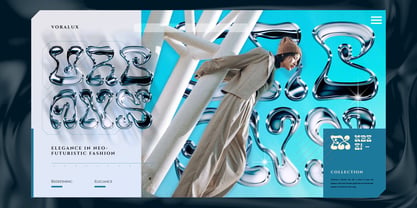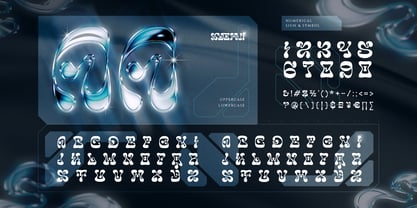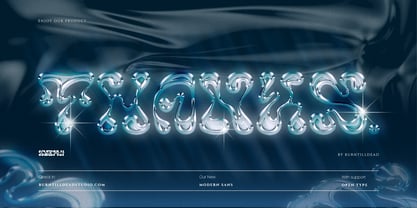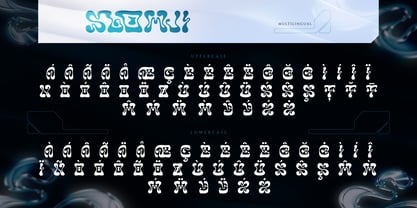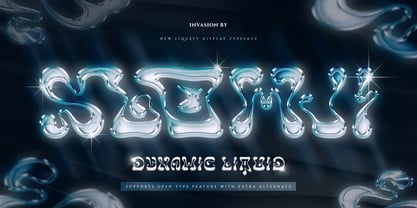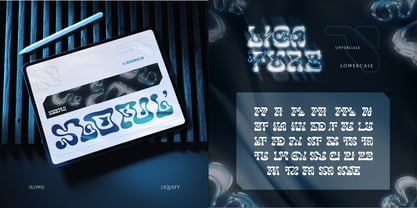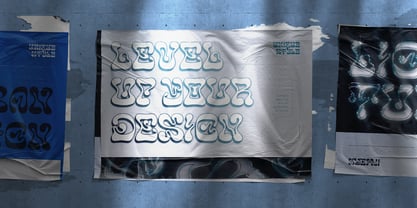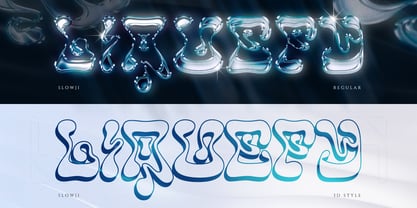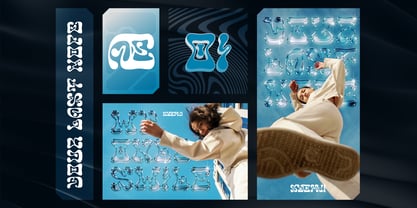
Slowji
by Burntilldead
The Slowji Font Family was designed by Eric Kurniawan and published by Burntilldead. Slowji contains 2 styles and family package options. More about this family
Meet Slowji, a one of a kind dynamic liquid font that inspired by psychedelic forms. Mesmerizing pcsychedelic liquid font that look like it’s melting right off the page. With its flowing shapes, wavy strokes and hypnotic curves, Slowji brings a sense of surreal movement to any design. Each letter feels alive — morphing, dripping, and twisting like a visual hallucination. It’s the perfect choice for projects that crave an offbeat, experimental vibe with a touch of wild imagination. This font perfect for trippy poster & zines, music festival branding, steetwear graphic, album cover and any design project that need trippy, dreamy and liquid theme.
Features:
• Uppercase & Lowercase
• Number
• Punctuation
• Ligatures
• Multilingual
Designers: Eric Kurniawan
Foundry: Burntilldead